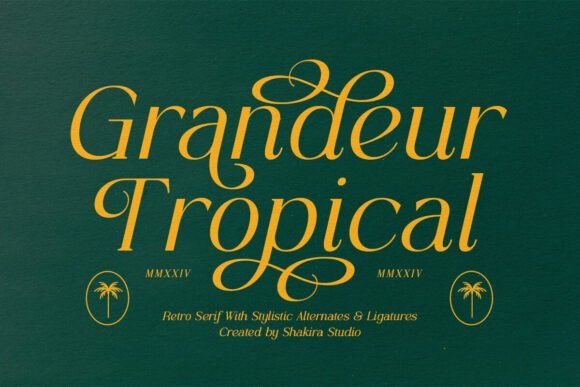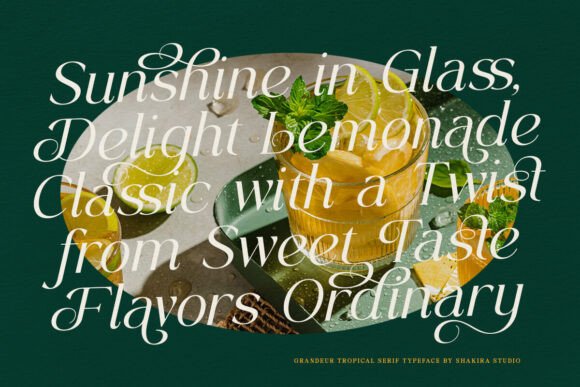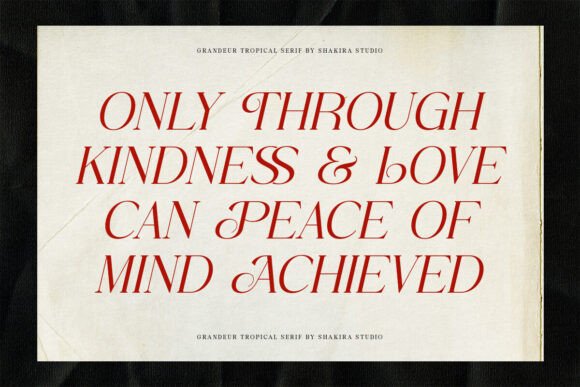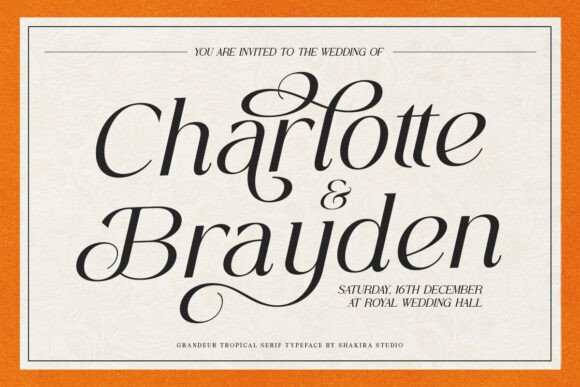
Discover the Timeless Charm of Grandeur Tropical Font
Do you remember the feeling of rummaging through your grandparents’ attic, uncovering vintage treasures and relics from a bygone era? As a designer, I’m sure you’ve experienced that same rush of excitement when stumbling upon an old typewriter or a dusty font manual. For me, it’s that thrill of discovery that sparked my love for the Grandeur Tropical Font – a luxurious retro serif font that’s perfect for creating stunning and memorable designs.
This elegant typeface is designed to transport you to a bygone era of sophistication and style, making it an ideal choice for posters, magazines, and print designs. With its bold character, elegant alternates, and ligatures, the Grandeur Tropical Font offers flexibility and ease of use, allowing designers to customize layouts effortlessly. Whether you’re crafting editorial layouts or standout branding, this typeface ensures an elevated and polished result.
Grandeur Tropical Font Key Features
- Unique Characteristics: Grandeur Tropical Font features a vibrant and playful design with intricate details, making it perfect for creating eye-catching and tropical-themed designs.
Grandeur Tropical Font Review
Overall, I think Grandeur Tropical Font is a beautiful, unique addition to any design project. ✨ The font’s organic, tropical feel immediately evokes a sense of exotic adventure and relaxation. It’s perfect for branding, advertising, or any project where you want to convey a sense of luxury and refinement.
The font’s character set is extensive, making it suitable for a wide range of languages. ✨ It also comes with a range of weights and styles, allowing you to customize your design to suit your needs.
While Grandeur Tropical Font is generally a great choice, there are a few limitations to be aware of:
- ⚠️ The font may not be as readable at very small sizes, which could be a concern for projects that require a lot of small text.
- ⚠️ Some users may find the font’s unique style a bit too outlandish for certain projects, which could limit its versatility.
Overall, I think Grandeur Tropical Font is a solid choice for designers looking for a unique and luxurious font. While it may have some limitations, its beauty and versatility make it a great addition to any design project.
Tip: Use Grandeur Tropical Font to add a touch of tropical elegance to your designs, such as travel brochures, restaurant menus, or event invitations.
Tip: Use Grandeur Tropical Font to add a sense of luxury and sophistication to your designs, such as magazine covers, book titles, or packaging labels.
Tip: Use Grandeur Tropical Font to add a touch of tropical charm to your presentations, such as travel presentations, event invitations, or educational materials.
Grandeur Tropical Font is perfect for designs that require a sense of luxury, elegance, and sophistication. Some common use cases include: